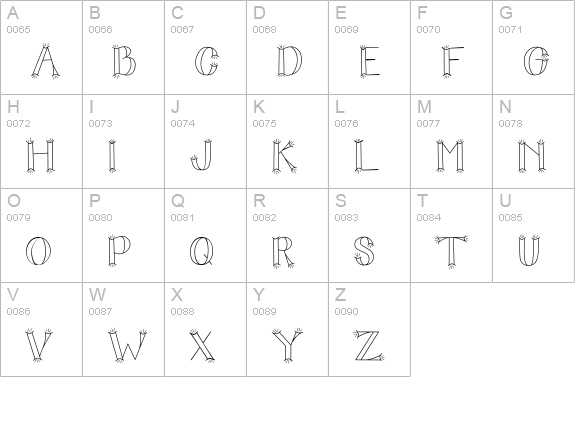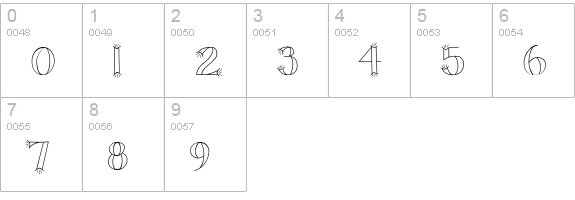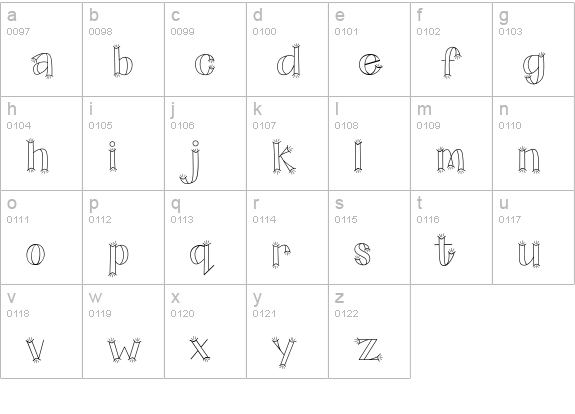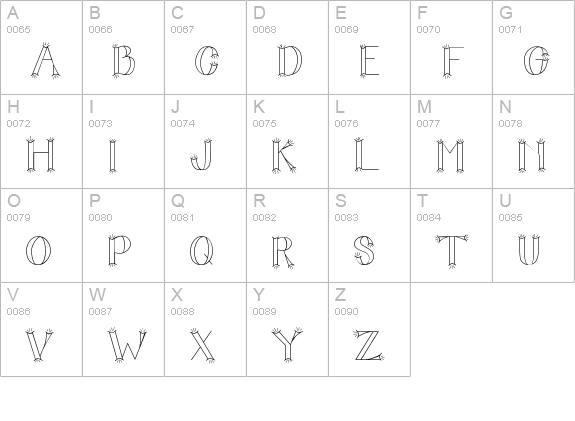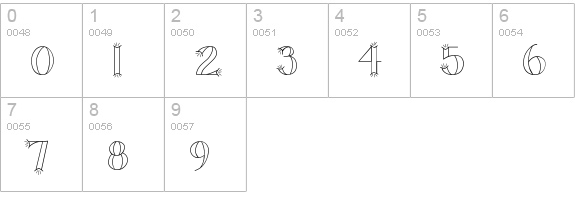
CK Spiky Classic Font Details
Introducing CK Spiky Classic font, a bold and dynamic typeface that exudes a sense of edgy sophistication. With its sharp angles and distinctive spikes, this font is perfect for making a statement in your designs. Whether you're creating posters, logos, or branding materials, CK Spiky Classic font is sure to stand out and leave a lasting impression. Best of all, CK Spiky Classic font is available for free download at FontsMarket.com. So, you can add this striking font to your collection without breaking the bank. Don't miss out on the opportunity to elevate your projects with the unique flair of CK Spiky Classic font. Download it today and let your creativity soar!